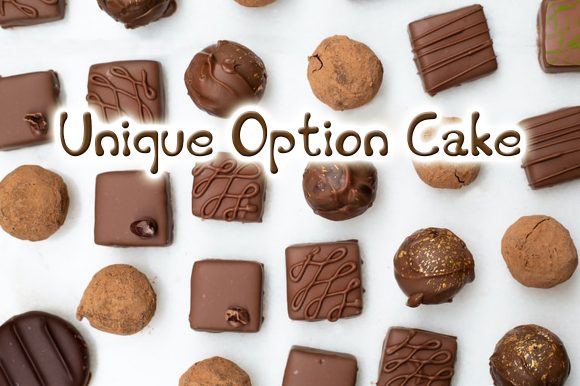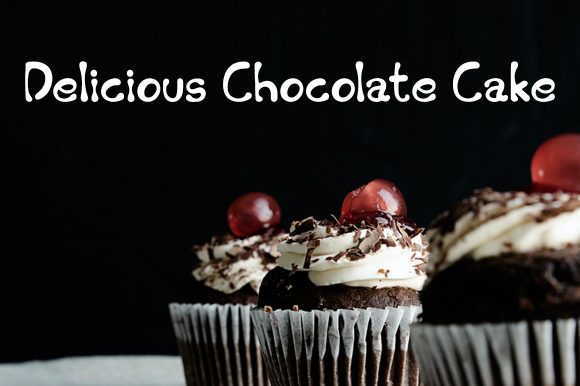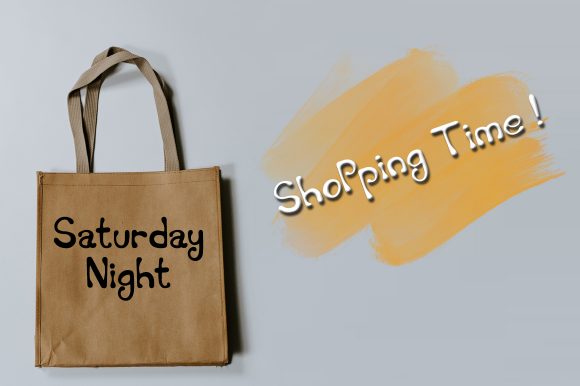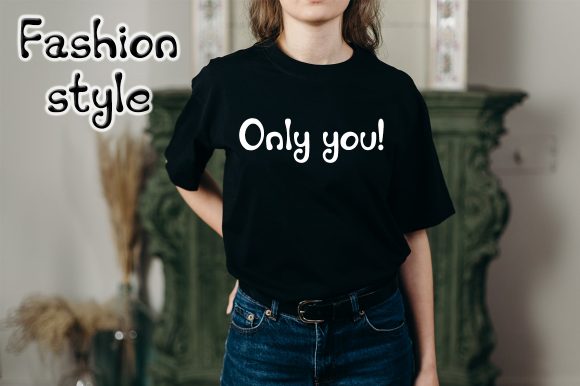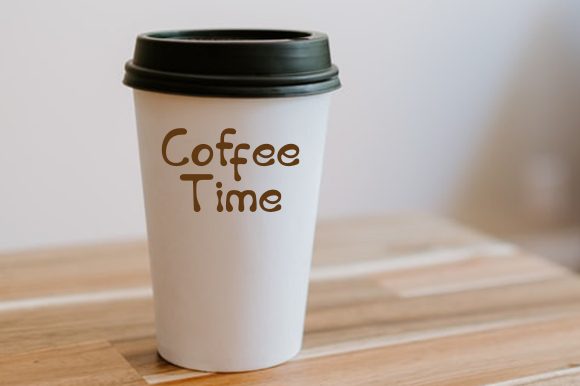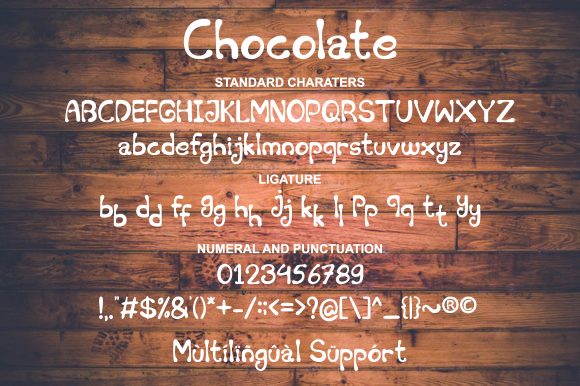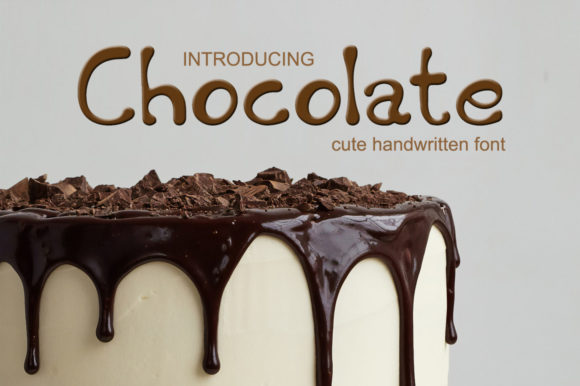
Introducing Chocolate Font: The Sweetest Addition to Your Design Collection
Are you tired of using the same old fonts in your designs? Look no further! Chocolate Font is a modern and playful handwritten font that’s sure to add a touch of sweetness to your creations. With its unique and customizable style, this font is perfect for designers and crafters who want to add a personal touch to their work.
What is Chocolate Font?
Chocolate Font is a beautifully crafted handwritten font that’s perfect for a variety of design projects. Its modern and playful style makes it ideal for use in wedding invitations, headings, logos, and more. The font’s unique and elegant design ensures that your creations stand out from the crowd, making it perfect for designers and crafters who want to add a touch of sophistication to their work.
Uses of Chocolate Font
Chocolate Font is a versatile font that can be used for a wide range of design projects, including:
- Wedding invitations: Add a touch of elegance and sophistication to your wedding invitations with Chocolate Font.
- Headings: Use Chocolate Font to create eye-catching headings for your blog posts, articles, and other written content.
- Logos: Create custom logos for your business or brand with Chocolate Font.
- T-shirts: Design custom t-shirts with Chocolate Font for a unique and stylish look.
- Name cards: Add a personal touch to your name cards with Chocolate Font.
- Bag and perfume designs: Use Chocolate Font to create custom designs for bags and perfumes.
Why Choose Chocolate Font?
So, why choose Chocolate Font over other fonts? Here are just a few reasons:
- Unique and customizable: Chocolate Font has a unique and customizable style that ensures your creations stand out from the crowd.
- Modern and playful: The font’s modern and playful style makes it perfect for a wide range of design projects.
- Elegant and sophisticated: Chocolate Font adds a touch of elegance and sophistication to any design project.
Tips for Using Chocolate Font
Here are a few tips for using Chocolate Font in your design projects:
- Pair it with other fonts: Chocolate Font pairs well with other fonts, so don’t be afraid to experiment with different combinations.
- Use it for headings: Chocolate Font is perfect for use in headings, as it adds a touch of elegance and sophistication to your written content.
- Experiment with colors: Chocolate Font looks great in a variety of colors, so don’t be afraid to experiment with different color combinations.
In conclusion, Chocolate Font is a modern and playful handwritten font that’s perfect for designers and crafters who want to add a personal touch to their work. With its unique and customizable style, this font is ideal for use in a wide range of design projects, from wedding invitations to logos and more. So why wait? Download Chocolate Font today and start creating your own sweet designs!
- What type of font is Chocolate Font?
Chocolate Font is a modern and playful handwritten font.